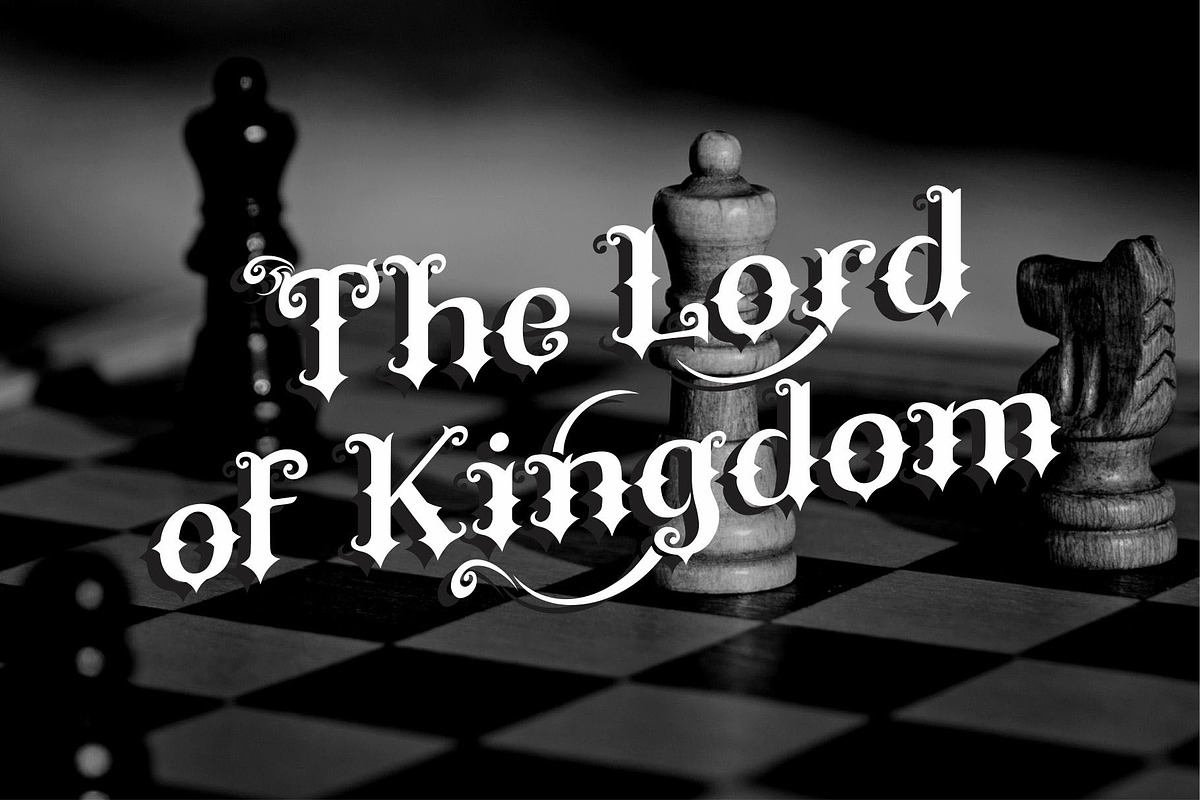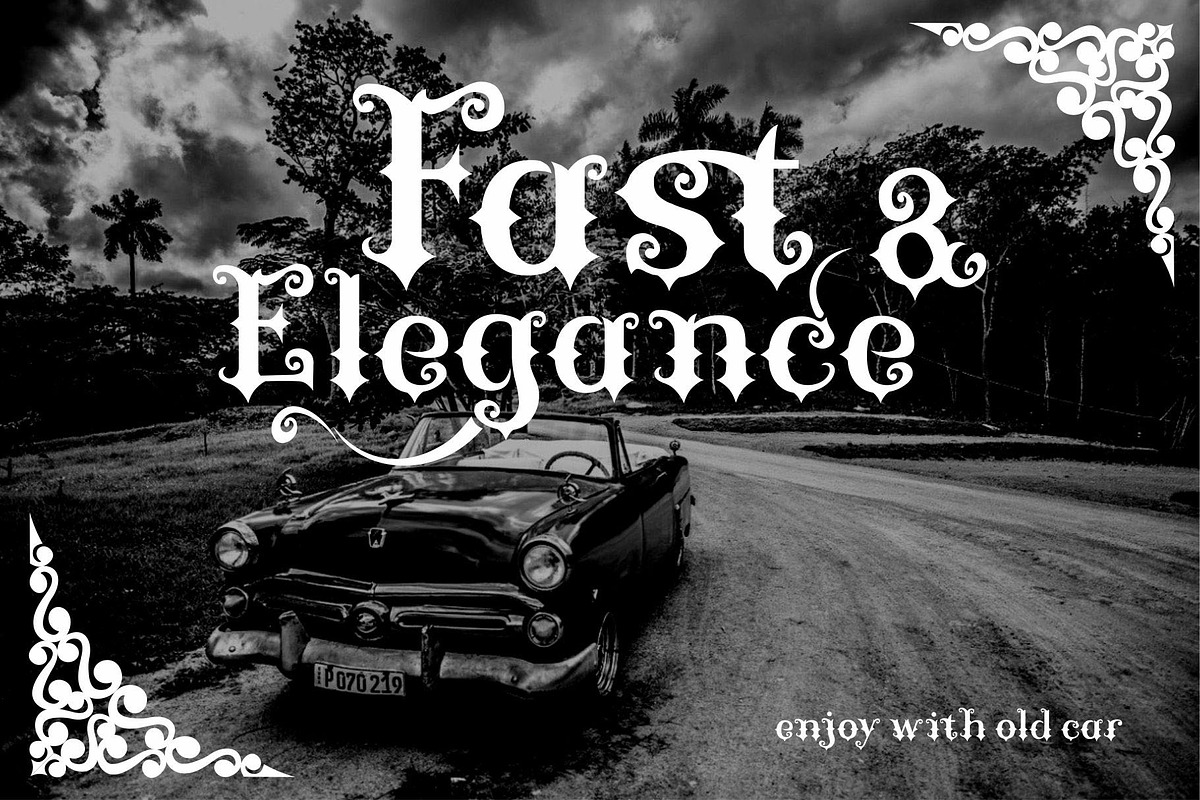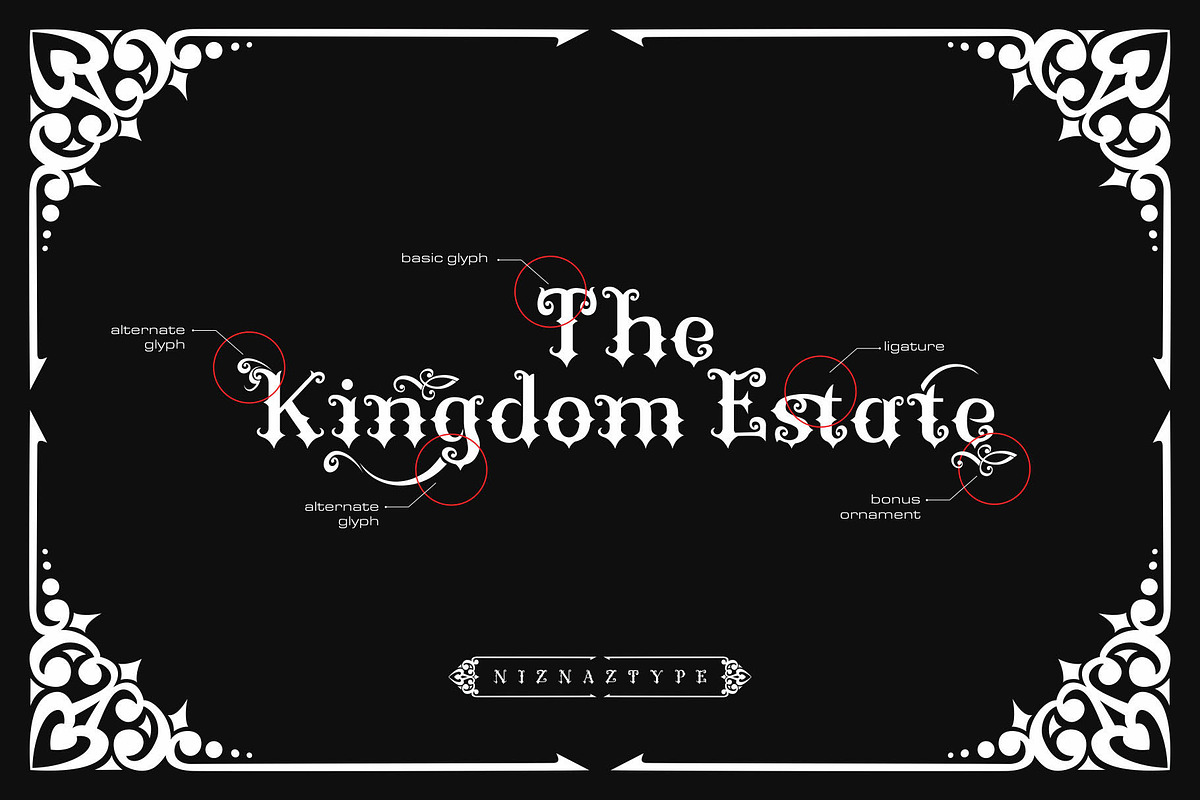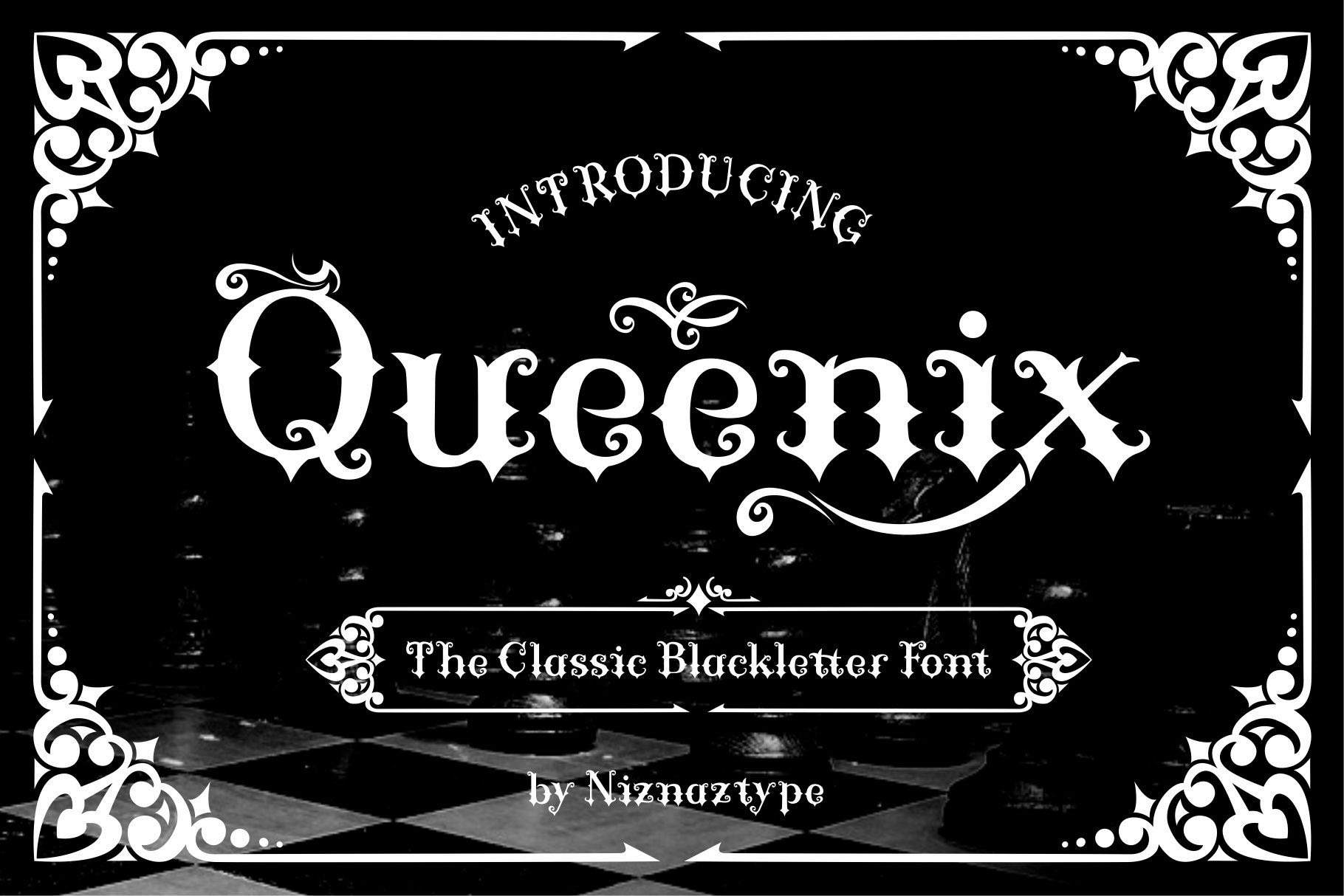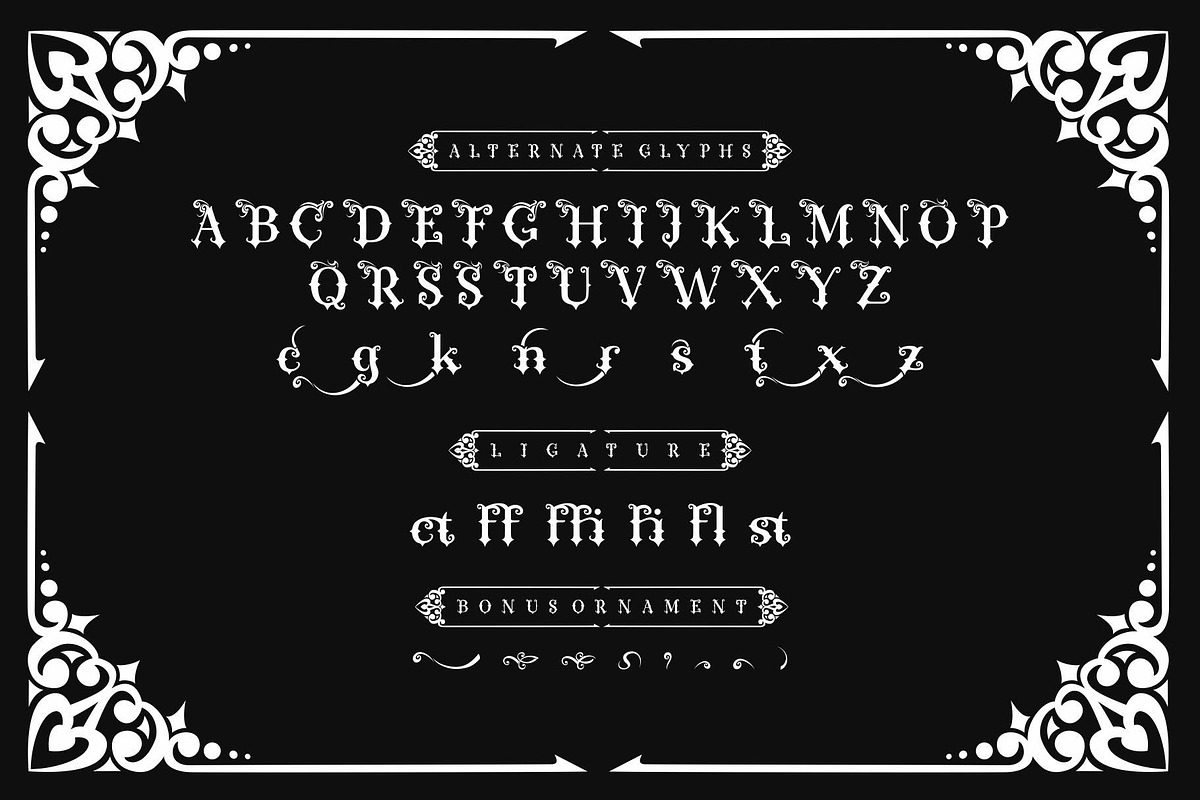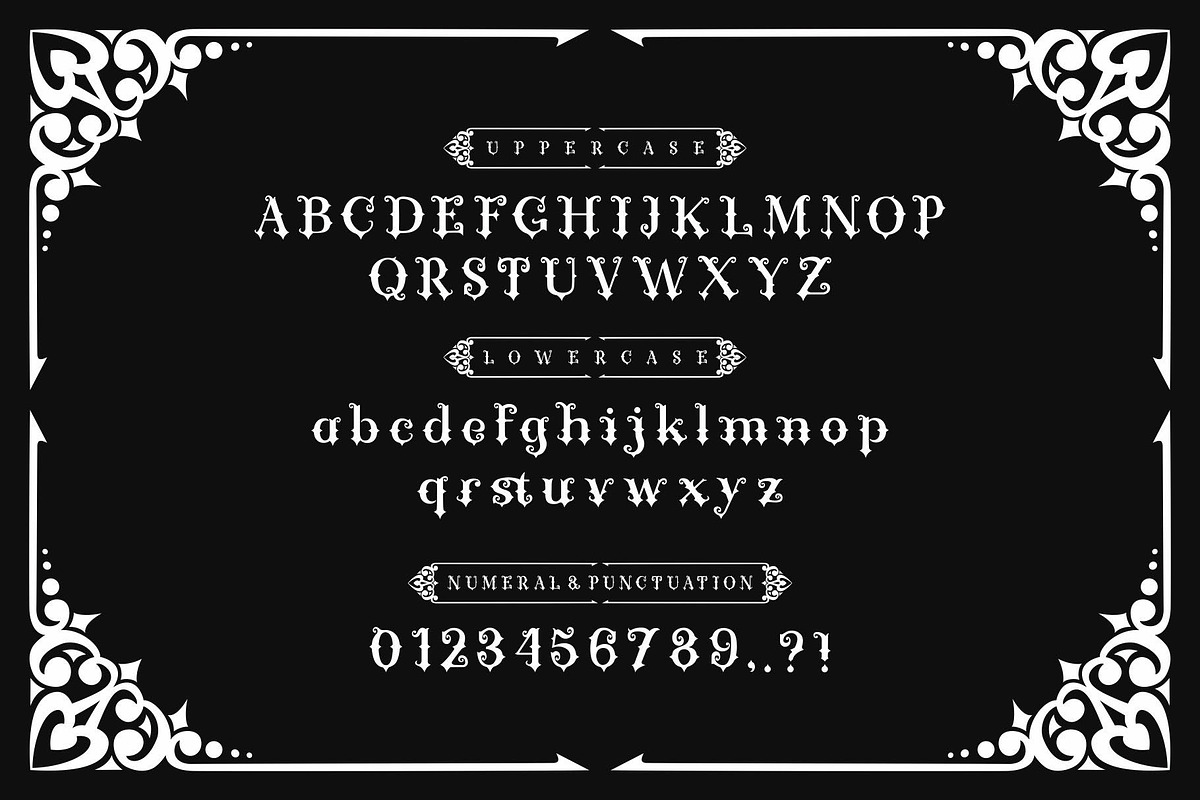
Queenix Font
Queenix is a new blackletter font with unity modern and classic styles. This font very comfortable for designs that put a theme such as classic, vintage, retro, gothic, darkness, metal, rock and roll or music concepts. Queenix contains uppercase, lowercase, numeral and punctuation. But, this font have a alternate glyph. Also, ligature and bonus ornaments. Classic and elegance are the special character glyph of this Queenix font. Queenix have 3 formats, TTF, OTF and WOFF. Please, enjoy it with my this font product. Send me email in emnazar@gmail.com if you have any question. Thank a lot